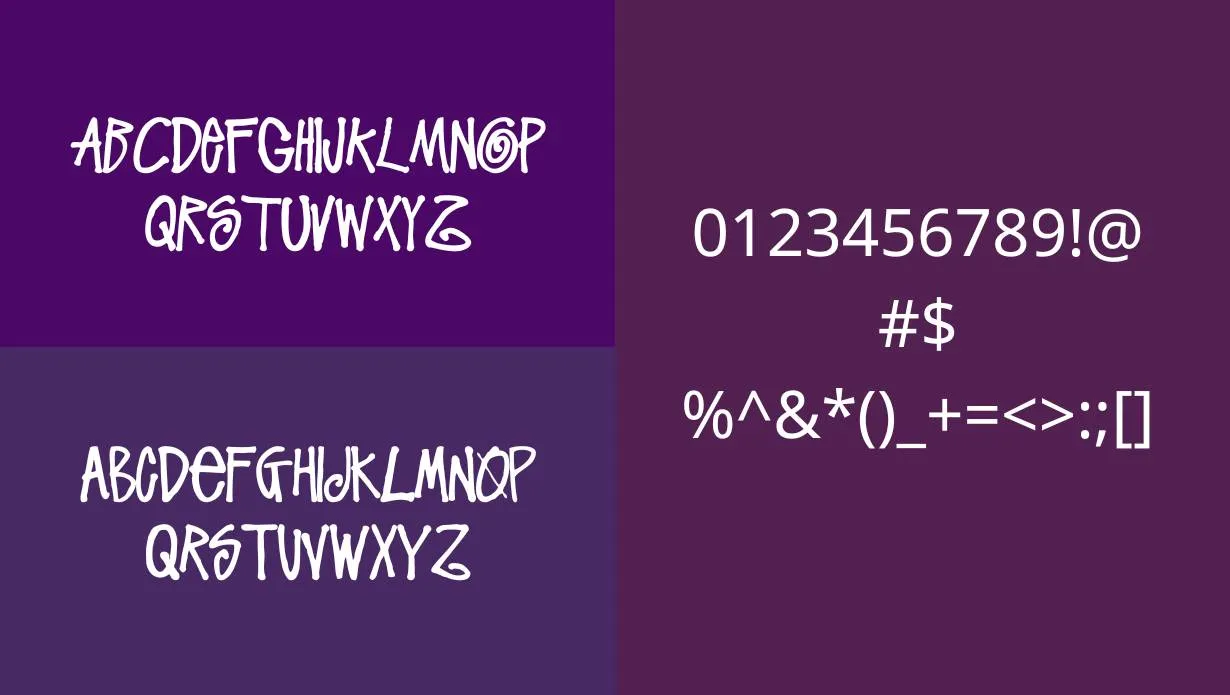
Stussy Font is known for its bold, graffiti-inspired lettering. It’s associated with the streetwear brand Stüssy and exudes a cool urban vibe. This font is Ideal for streetwear apparel designs, graffiti art, or any project that aims to capture a hip and rebellious spirit.
A UK-based designer Niall Kitching took charge and designed this amazing font. There are many similar fonts to this typeface but, Zimbra Font is the most similar in characters to this typeface.
Stussy Font Family